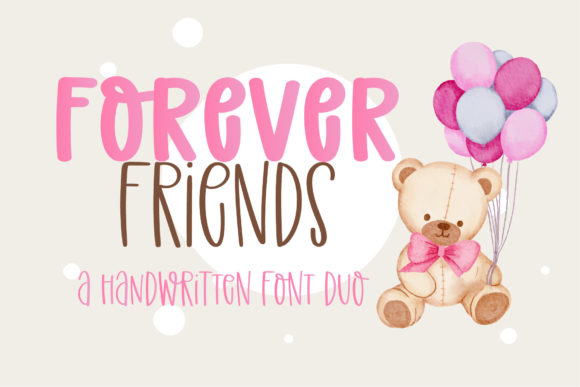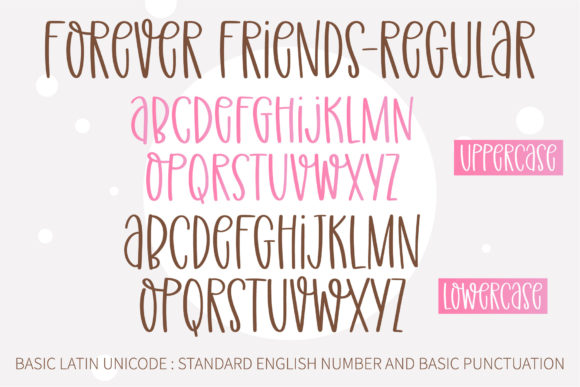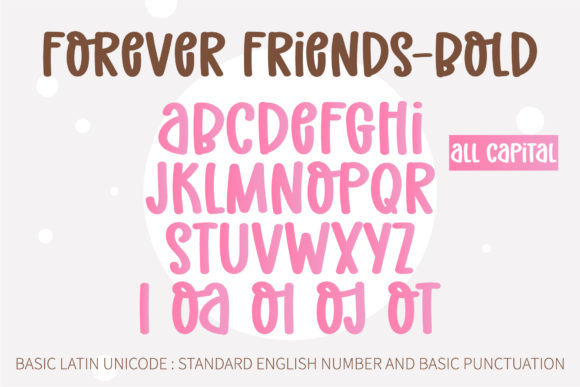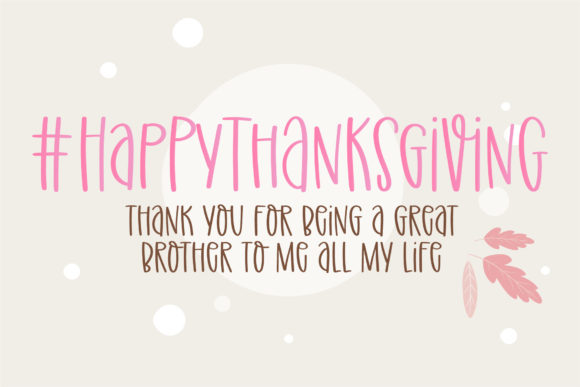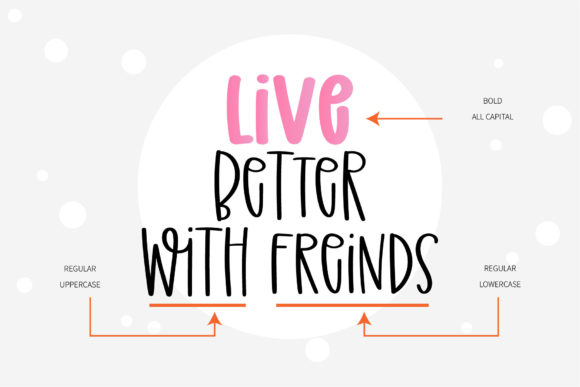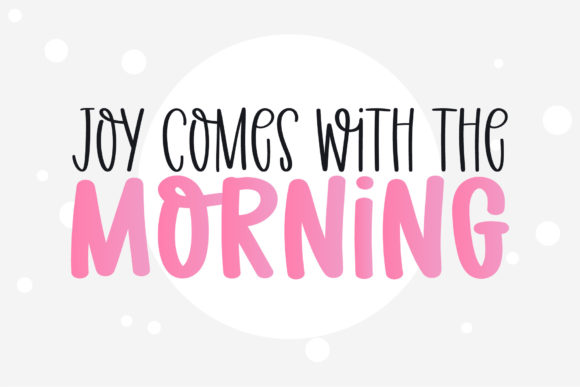
Forever Friends Font
Forever Friends is a cute and relaxed handwritten font duo. Its natural and unique style makes it suitable for a variety of design ideas. Add it confidently to your projects, and you will love the results.